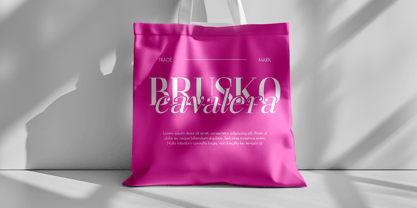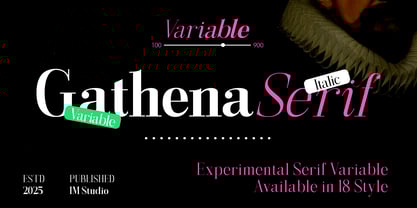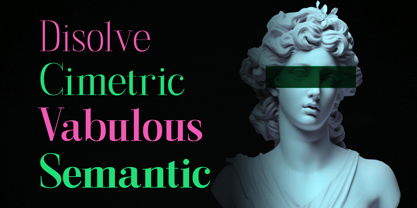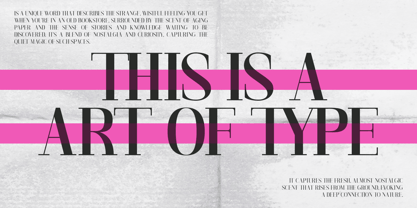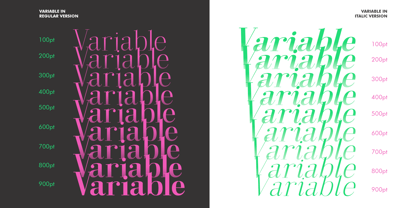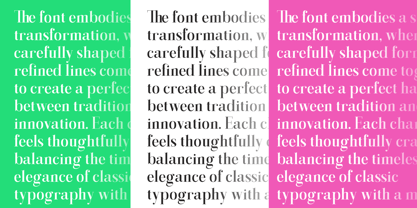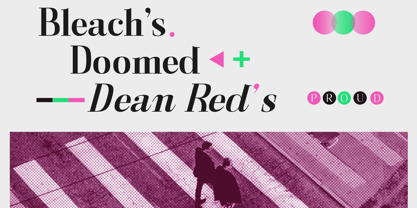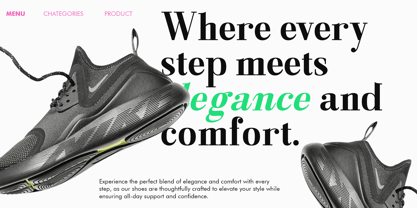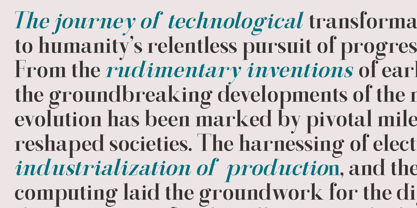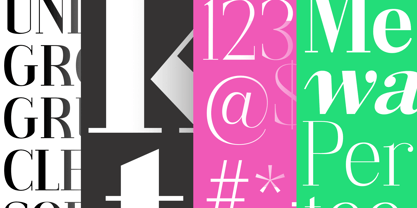
Gathena Serif
Introducing Gathena Serif: A Typeface for Timeless Elegance
Experience the allure of timeless sophistication with Gathena Serif, a thoughtfully designed typeface that blends classic elegance with contemporary aesthetics. With high-contrast strokes and graceful curves, Gathena Serif delivers a captivating visual harmony to elevate any design project.
Perfect for sophisticated editorial layouts, memorable brand identities, or engaging websites, Gathena Serif’s flexibility and refined beauty ensure your designs stand out. Each character embodies strength and elegance, from the finely chiseled serifs to the perfectly balanced proportions, celebrating the timeless appeal of classic typography. Its true italics offer a unique style and dynamic movement, adding visual interest and enhancing readability.
Key Features:
Effortless Elegance: Clean lines and balanced proportions exude classic charm, making it ideal for a wide range of applications.
Advanced OpenType Features: Unlock advanced typography options, including ligatures, for full creative control.
Multilingual Support: Support for over 90 languages ​​ensures your message resonates globally.
True Italic: Carefully designed italics complement upright characters, creating a harmonious visual flow.
Perfect For:
Editorial Design: Ideal for magazines, newspapers, and books, it combines elegance with readability for long-form content.
Branding & Logos: Create a sophisticated and memorable brand identity with the timeless appeal of Gathena Serif.
Web Design: Clean lines and high contrast ensure optimal readability on screens of all sizes.
Packaging & Print: Add a touch of class to your product packaging and printed materials.
Invitations & Stationery: Make a lasting impression with Gathena Serif’s elegant presence on invitations, greeting cards, and more.